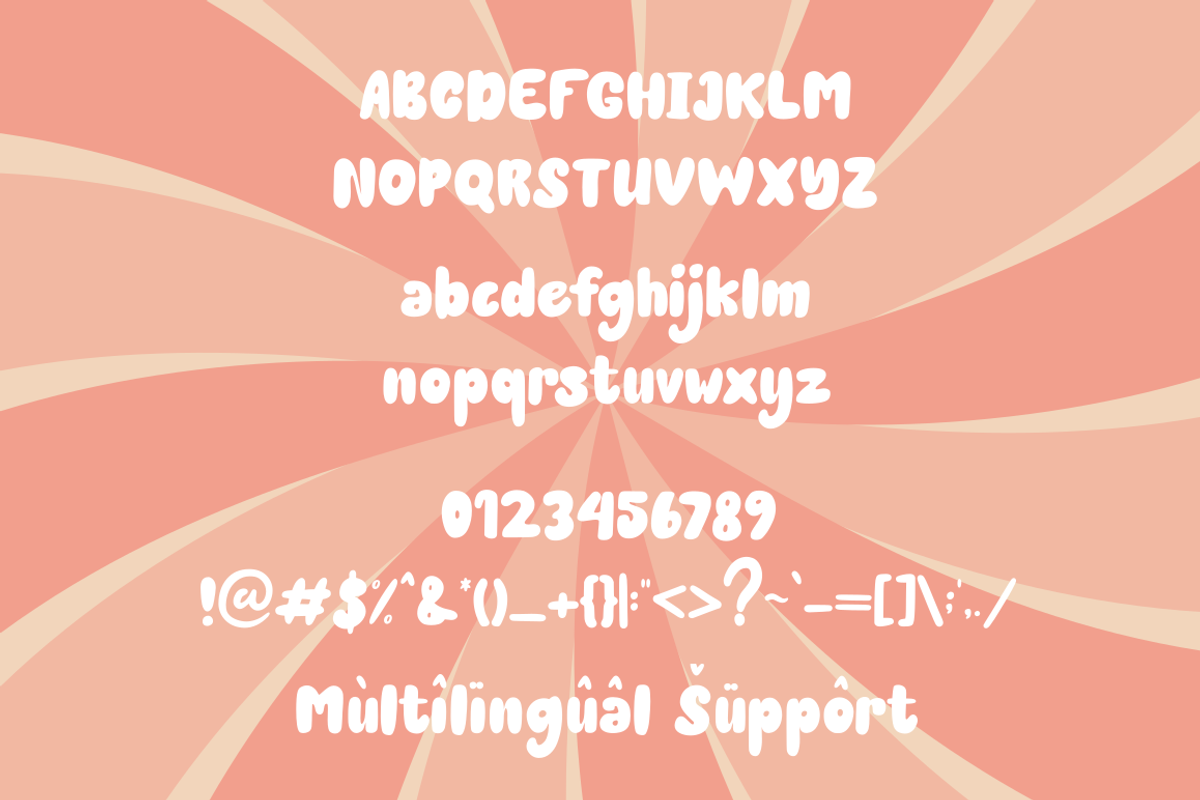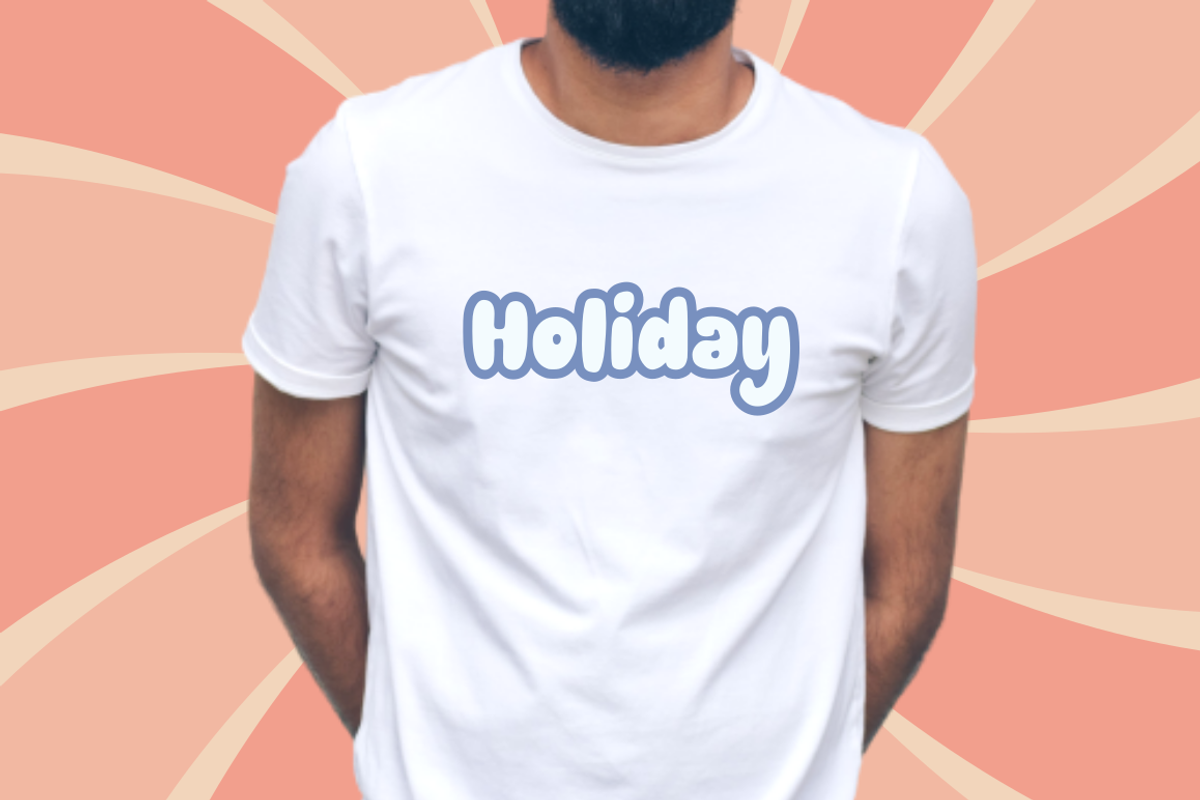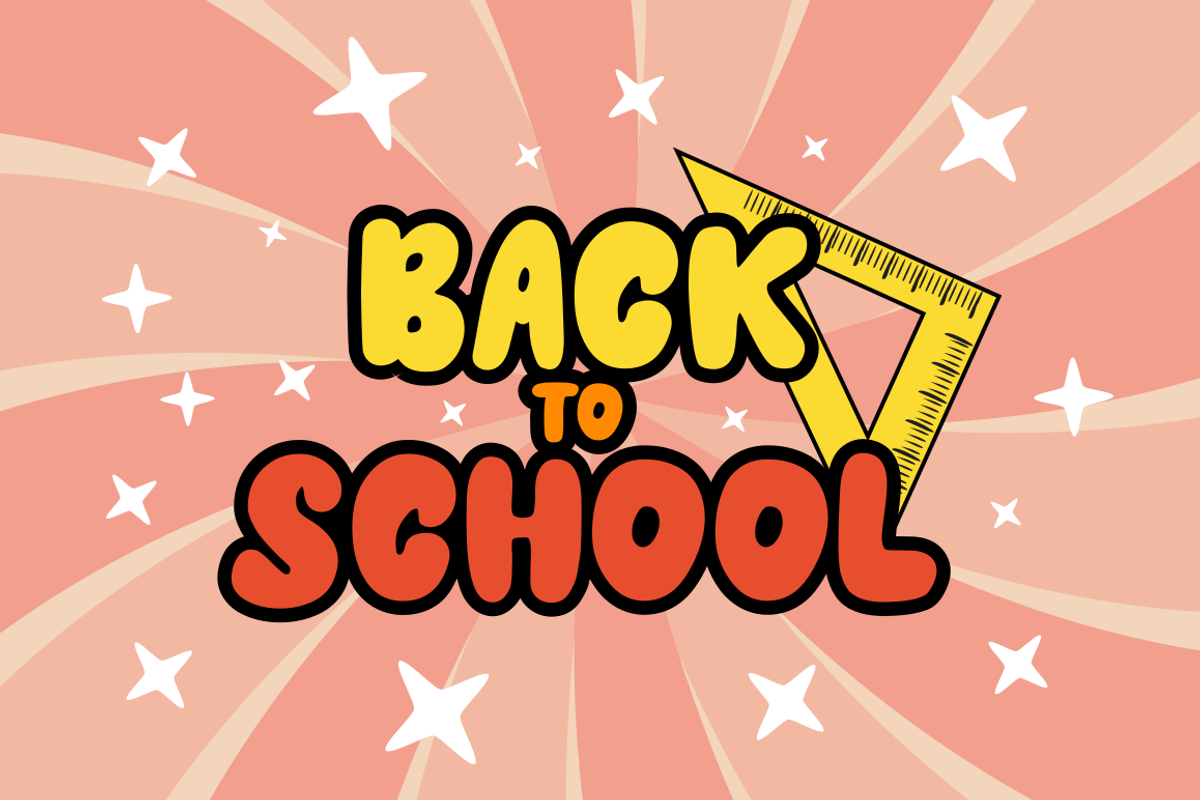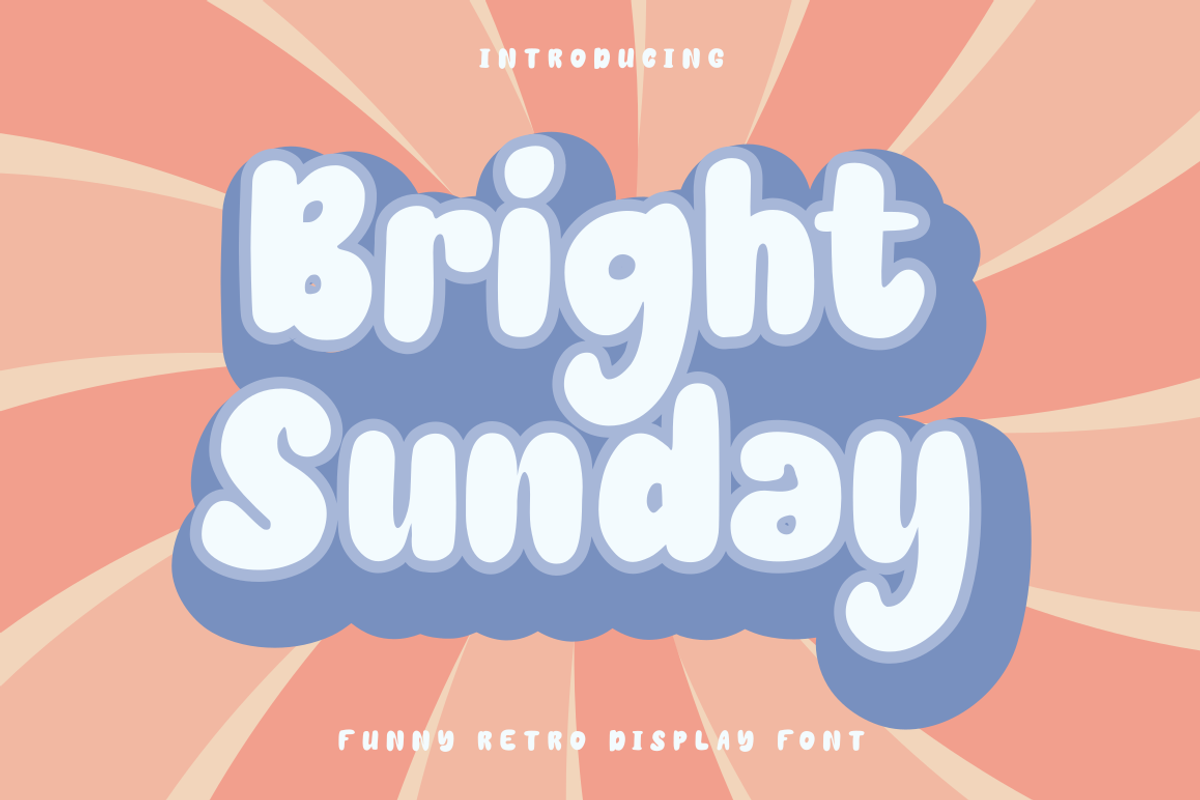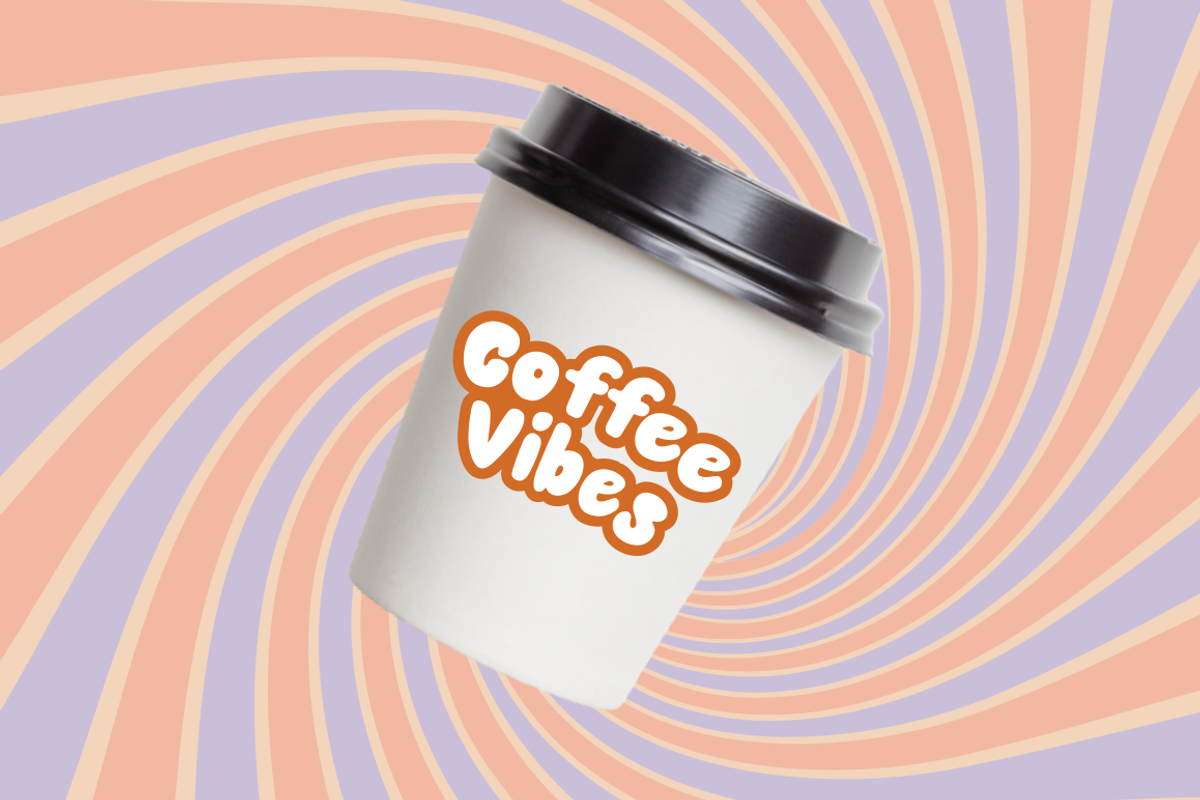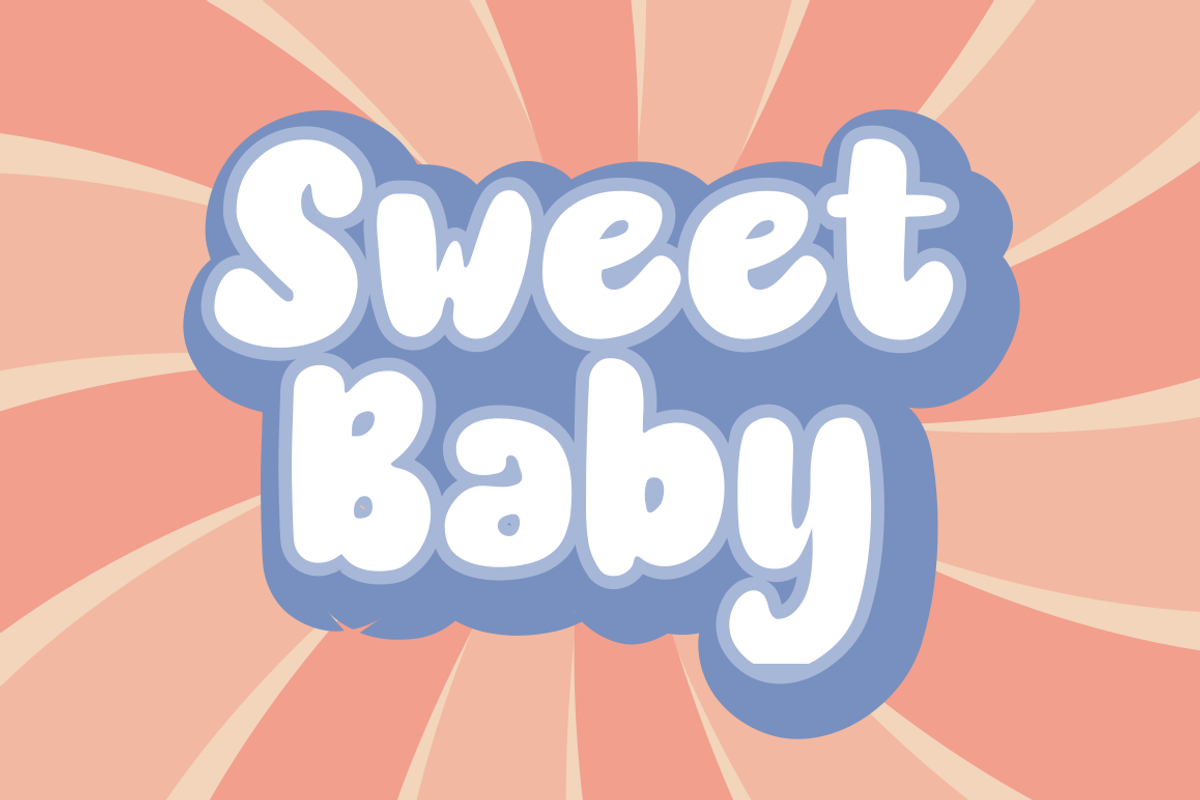
Bright Sunday | Funny Retro Display
Bright Sunday Font is a funny dan retro display font, It embodies playfulness and authenticity and is the perfect choice for any children activity or school project. featuring Standard Character, support for 50+ languages
It is suitable for logotype, headline font, in corporate identity, brand identity, apparel industry, poster, music, movie, game, magazine, book, comic, cartoon, YouTube, Instagram, website, or any of your creative design projects.
- Support multilingual support